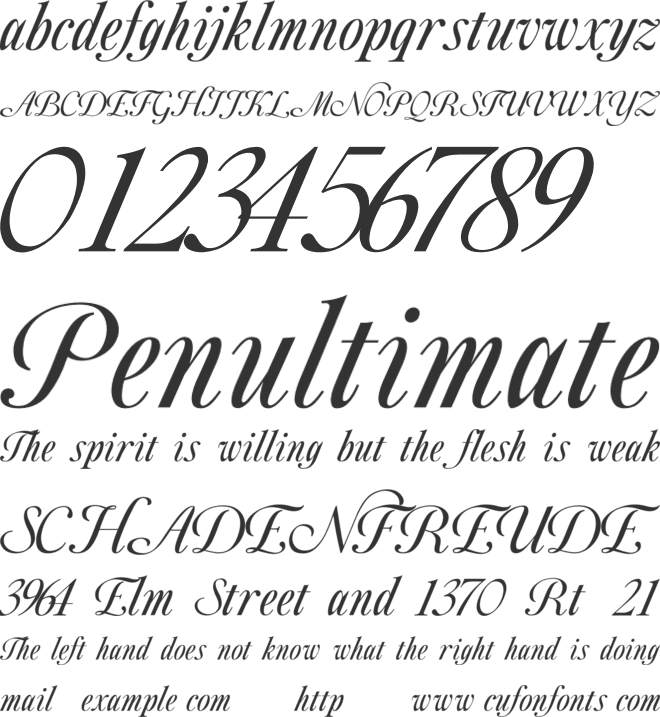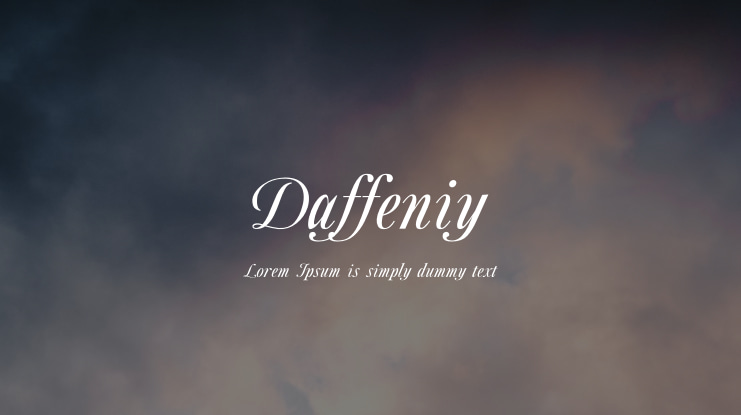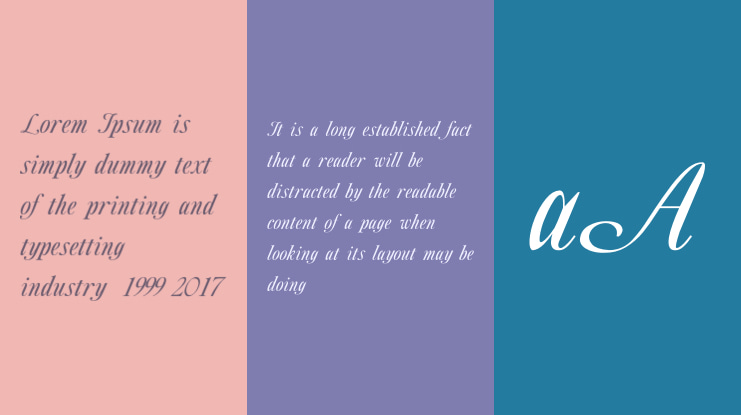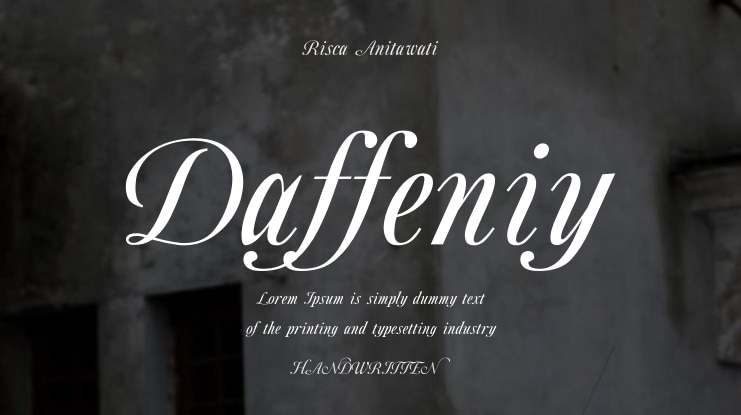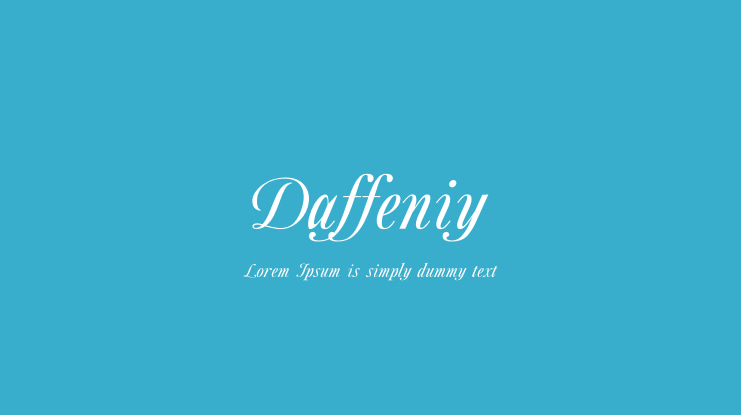
Daffeniy Font
Meet Daffeniy, a stunning italic calligraphy font exuding elegance and femininity with its graceful flow characters. Radiating luxury, this font is ideal for logos, headlines, signage, invitations, magazines, books, greeting cards, packaging, and more. Elevate your digital creations with this unique and beautiful font.